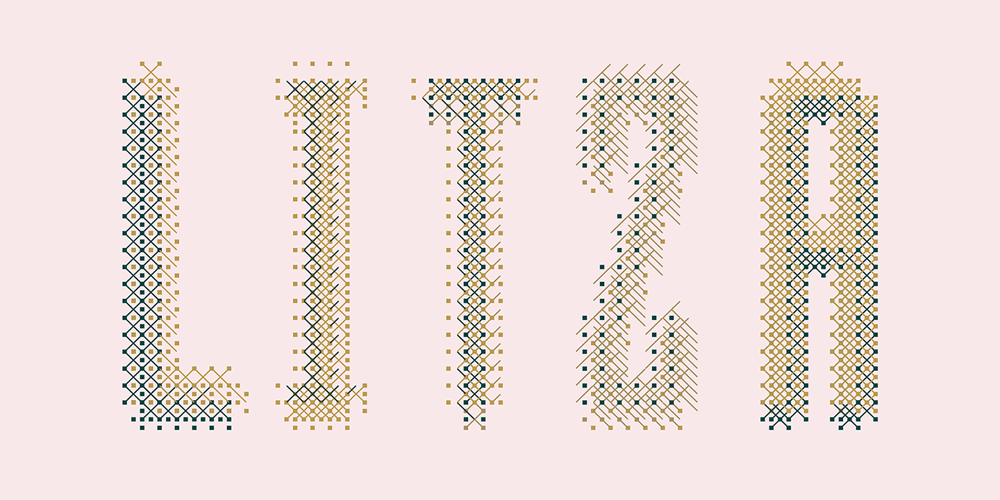
Litza
Litza font
Litza Font Family was designed by Marianna Orsho and published by Marianna Orsho. Litza contains 29 styles and family package options. Litza is a layered, condensed, all-caps cross stitch display type family. It is made up of 10 layers that show different stages of stitching and can be stacked, moved around, and coloured separately in order to create interesting effects. The ten layers come in 3 weights; Light, Medium, and Bold. The 3 weights can also be mixed with one another to create a vast range of combinations when stacking the layers. Litza has multilingual support and includes glyphs for a wide range of Latin and Cyrillic languages. The family also contains a set of ornamental borders and over 80 decorative symbols in the shape of various animals and objects. Combining the various Litza layers allows you to create eye-popping, intricate, experimental typographic compositions that are rich in detail – with ease. The condensed, geometrics sans-serif letterforms and playful nature of the Litza layering system give a contemporary feel – while at the same time retaining a nostalgic and tactile quality due to its reference to traditional needlework techniques and patterns. Ideal for use at larger point sizes where the unique, stylish effects can be best expressed – Litza will add a touch of intrigue and work best in headings and emphasised text for poster design, editorial design, packaging design, and motion design.